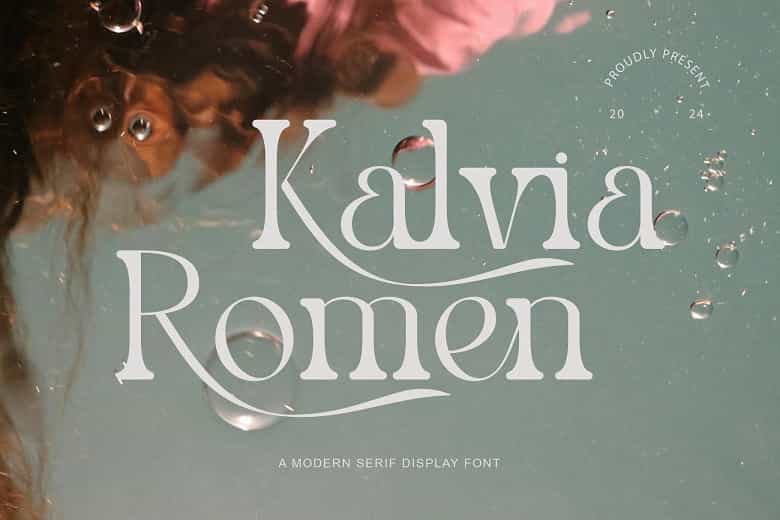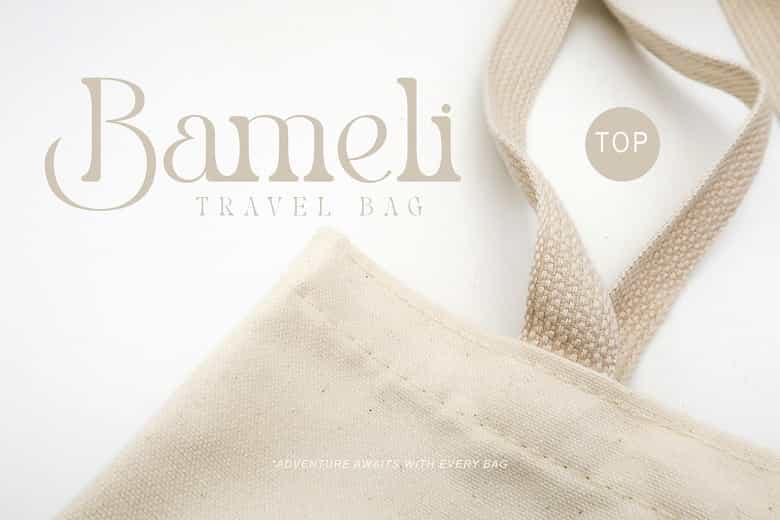
Kalvia Romen is a fine and sophisticated serif display font. Thanks to its stylized and simple design Kalvia Romen will add elegance and sophistication to your works such as websites, logos and brands, quotes for social networks, wedding invitations and other purposes!